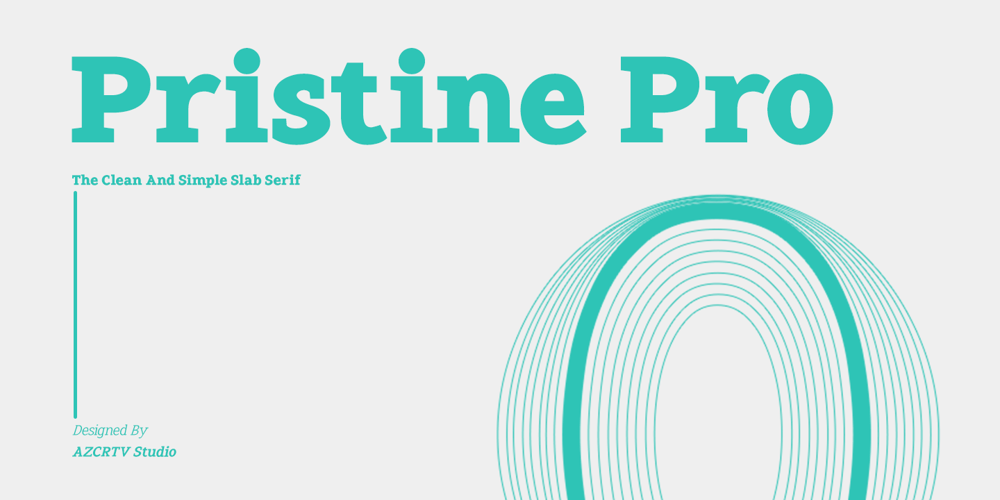
Pristine Pro Slab Font Family was designed by Abdul Azis and published by AZCRTV Studio. Pristine Pro Slab contains 18 styles and family package options. Meet Pristine Pro, the epitome of elegance and precision in typography. This Slab Serif font, meticulously developed with a humanistic touch, promises unparalleled sophistication for your projects. Its 18 versatile font families, ranging from Thin to Black, offer a tailored solution for every design need.Explore the seamless blend of clean lines and firm structure that defines Pristine Pro. This font isn’t just a typeface; it’s a statement of modernity and style. With support for 89 international languages, including English, French, Spanish, and German, Pristine Pro caters to a global audience, ensuring your designs communicate effectively worldwide. Desire perfection in your designs? Pristine Pro delivers. Craft compelling branding, striking posters, or editorial layouts with confidence. Its immaculate precision and extensive language support empower your creativity. Your desire for flawlessness finds its match in Pristine Pro, promising visuals that captivate, leaving a lasting impression on any audience. Ready to elevate your designs? Take action now. Download Pristine Pro and witness your creativity flourish. Unleash the power of clean Slab Serif typography with international appeal. Dominate the digital space, ensuring your projects rank high and capture attention. Seize this opportunity and transform your designs into timeless masterpieces.